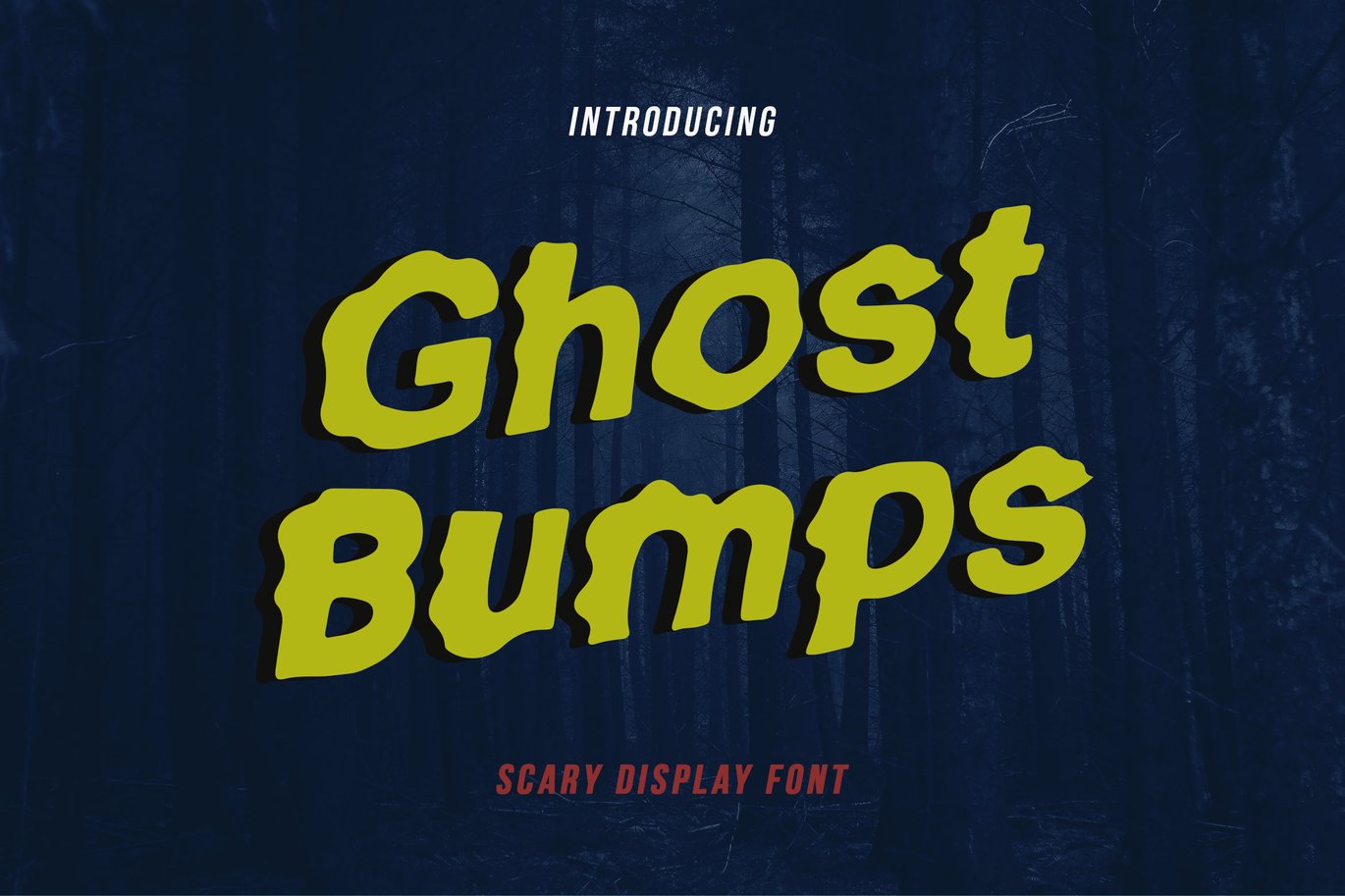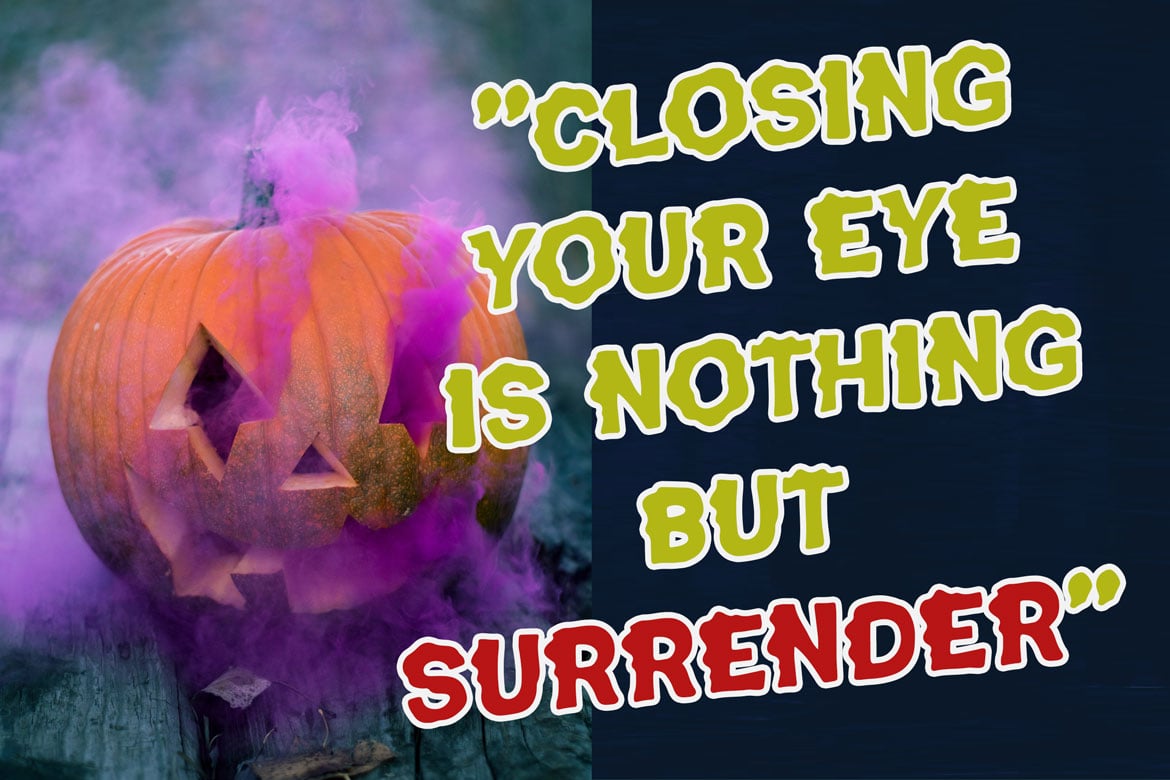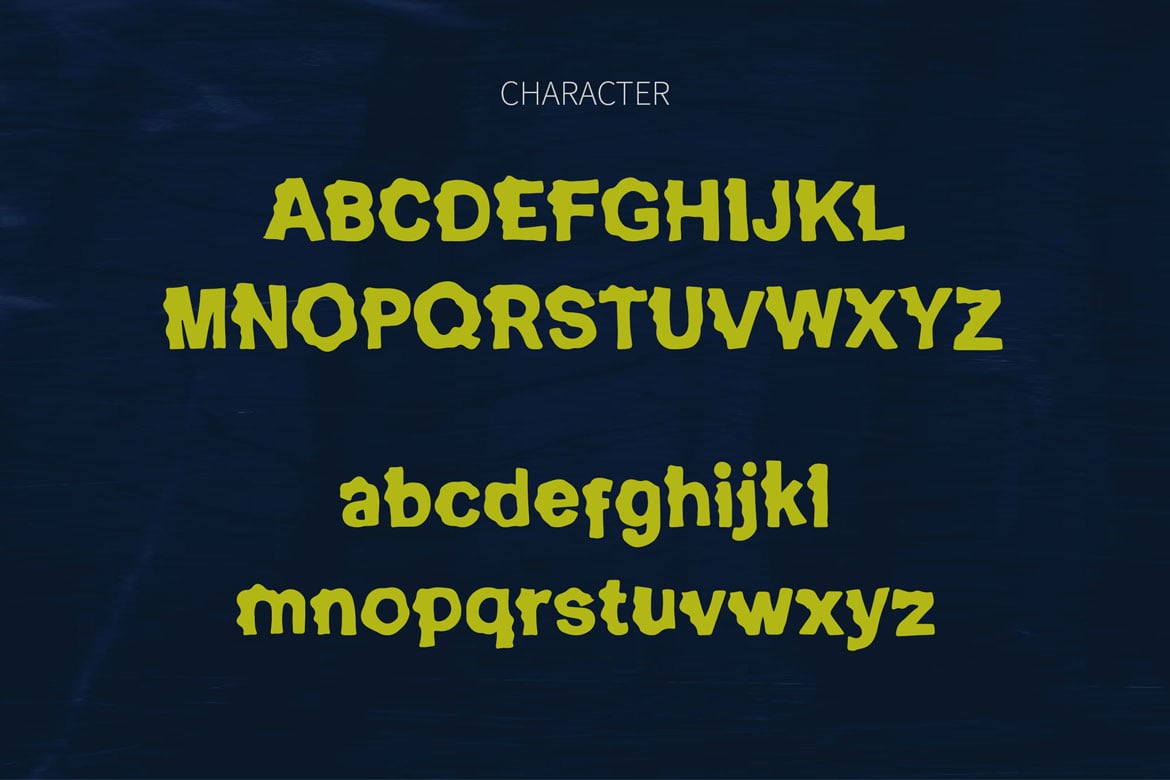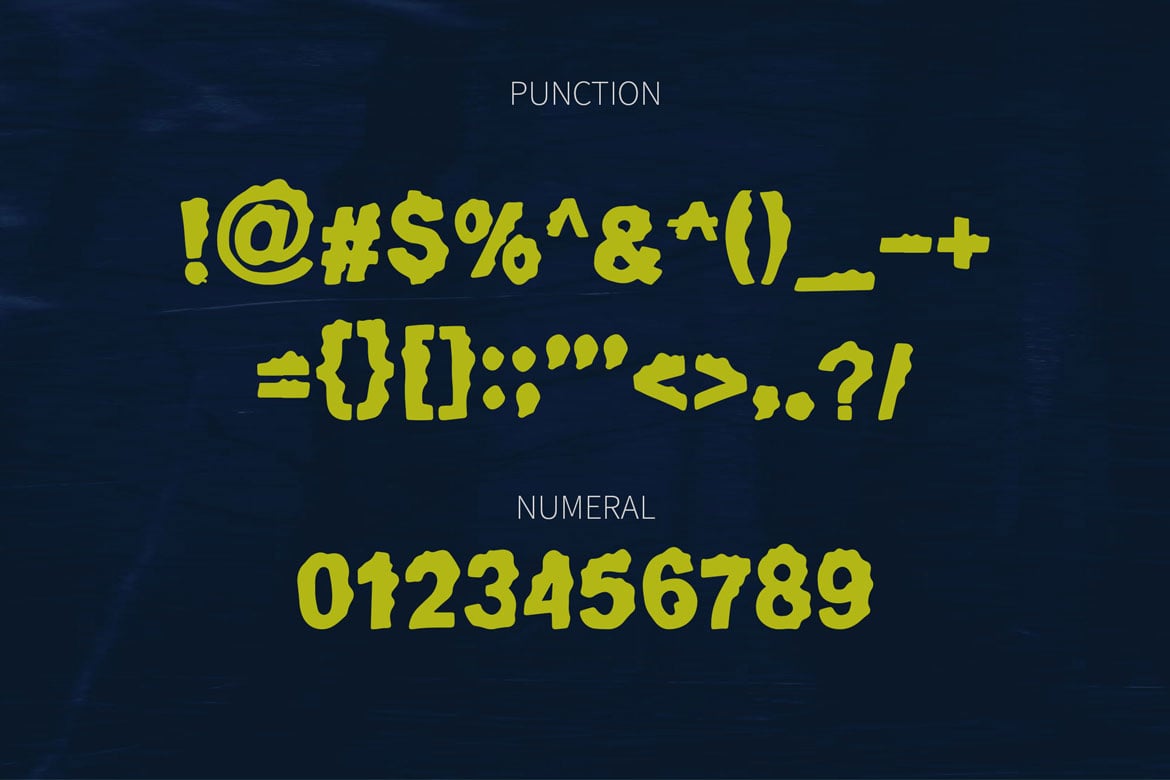
Ghostbumps – Scary Display Font
We are happy to introduce our new font “Ghostbumps” is a scary display font, this font looks horror, cool, cartoon,
playful, catchy and easy to use.
Ghostbumps Font is the best choice for your professional design projects, including : logo, poster design, t-shirt, headline,
flyer, cd cover album, quotes, business card, branding, magazines, social media, advertisements, product designs, or
something that need playful or cartoon looks.